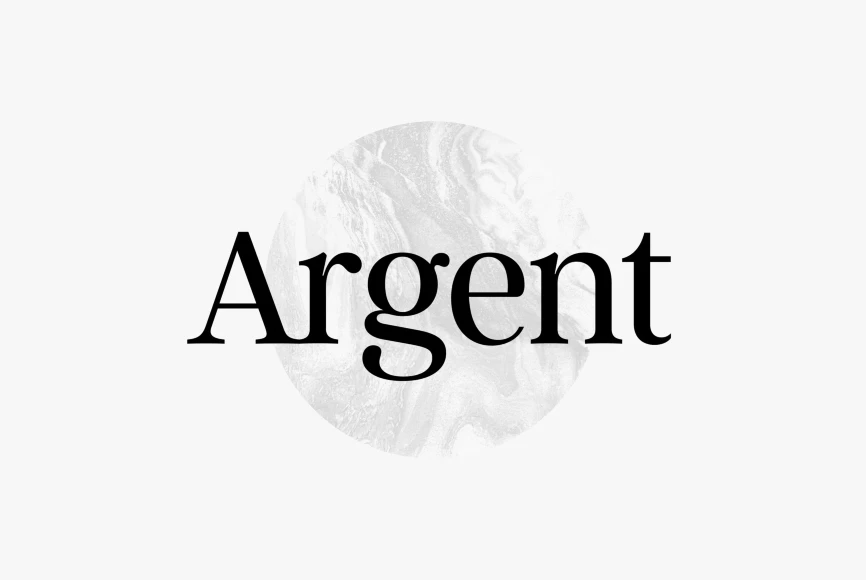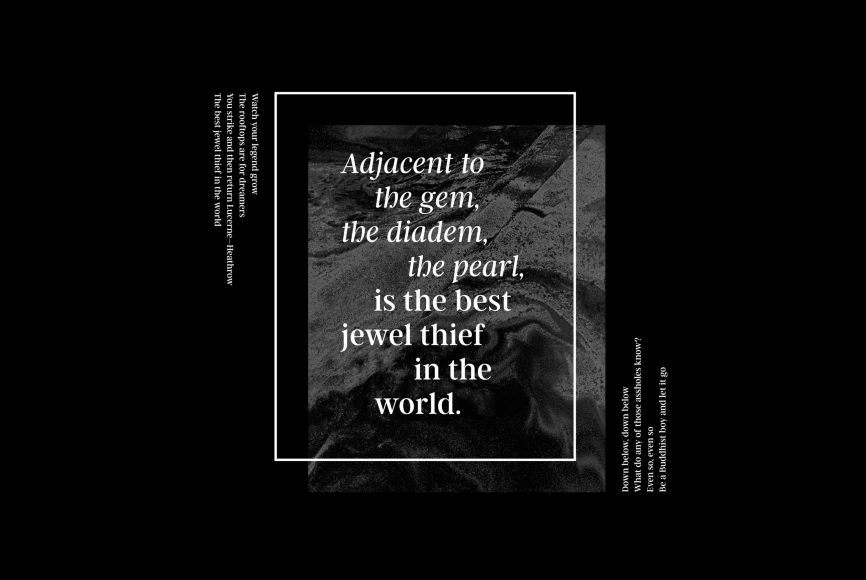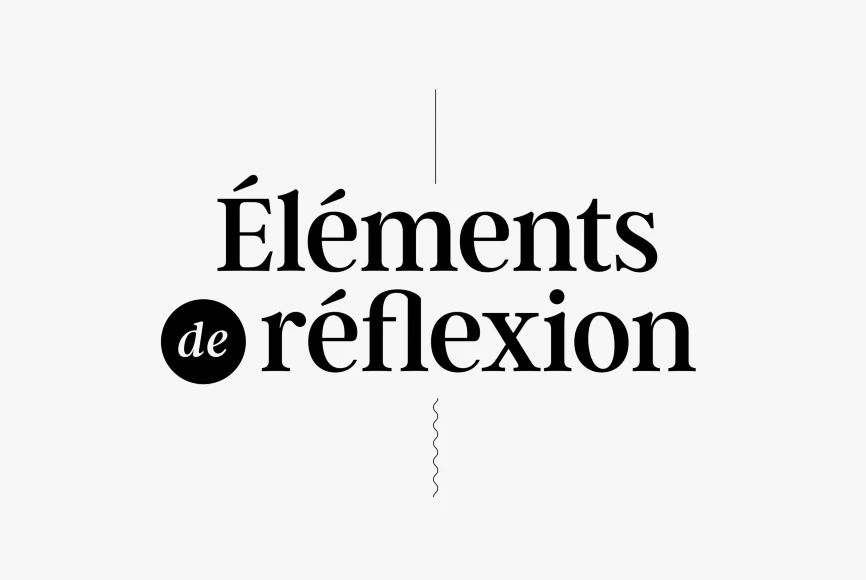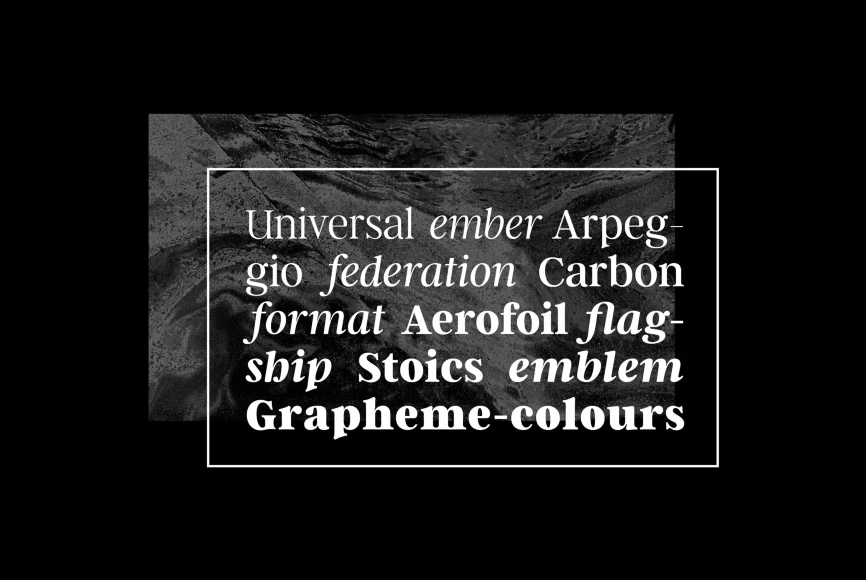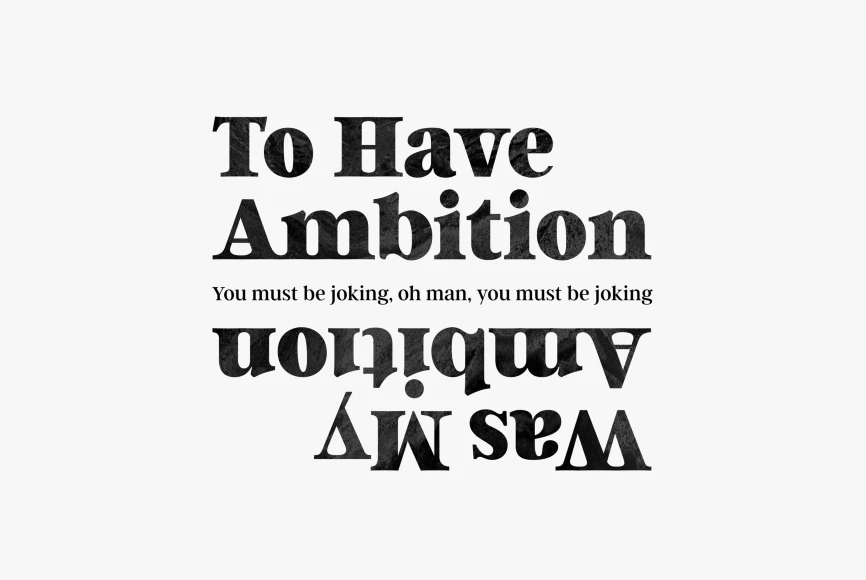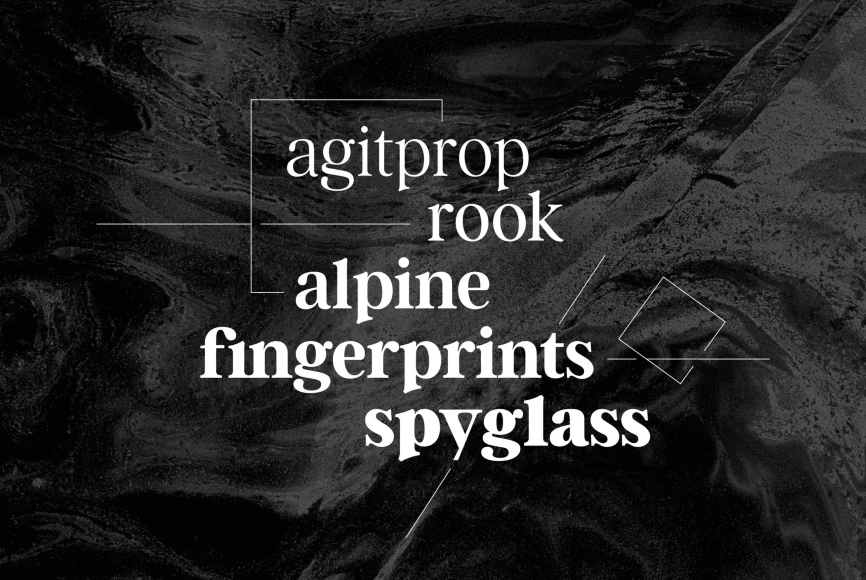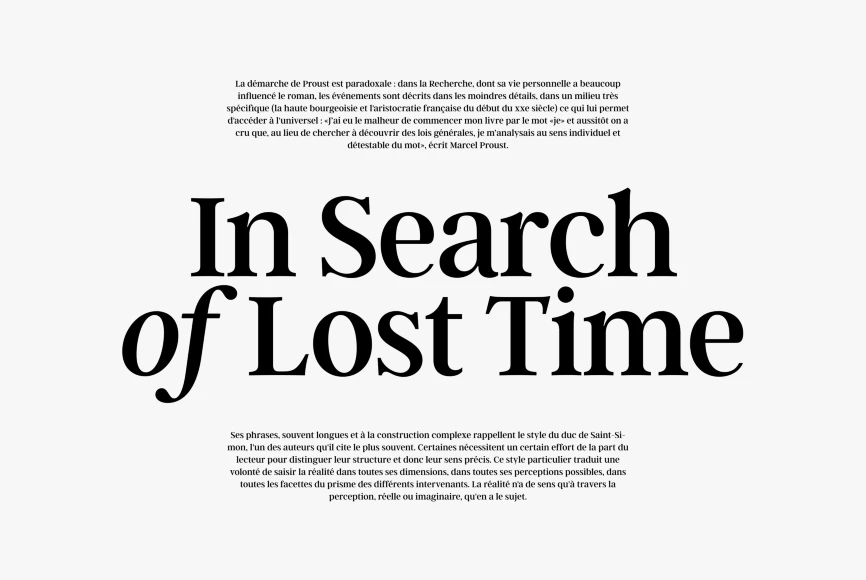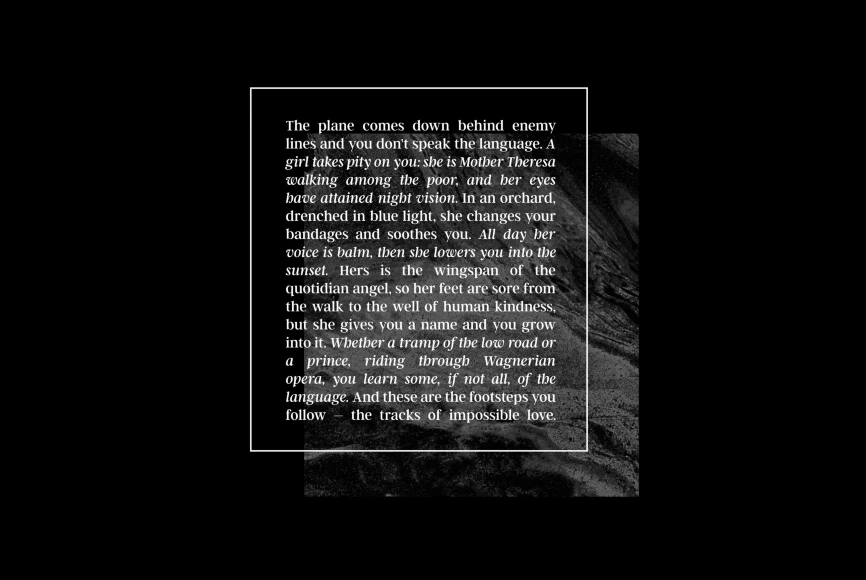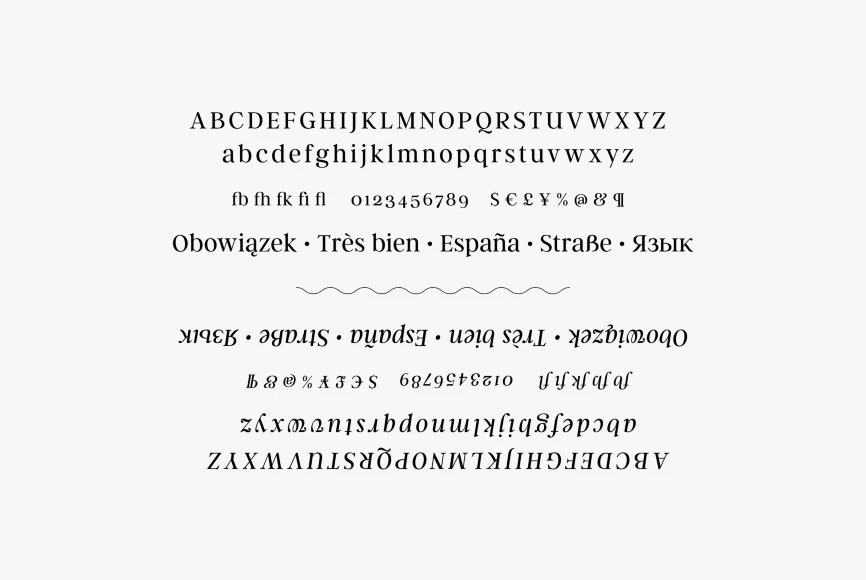
Argent
From Connary Fagen Fonts
Argent CF is dashing and expressive, with a pronounced x-height and evocative, flowing letterforms. Featuring charming italics, a host of OpenType features, wide language support, and lots of character, Argent excels at headings, titles, and logos. Argent CF is a serif font family. This typeface has thirteen styles and was published by Connary Fagen Type Design.
Designed by Connary Fagen